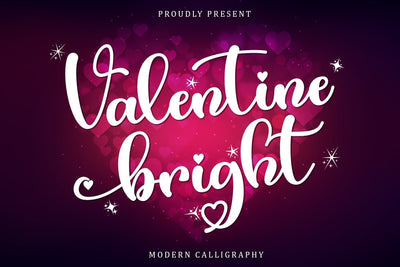
Valentine Bright
Valentine Bright is a modern script font created especially for Valentine’s Day. Also, with this font you can make your writing and branding look elegant and beautiful.